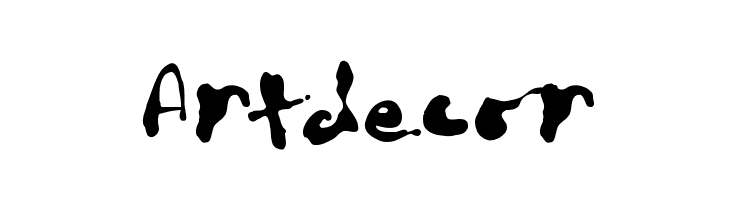
A bold, artistic font with an ink-like, fluid appearance.
A bold, outlined serif font with a classic and decorative style.
A playful font with each character accompanied by a cute puppy illustration.
A pixelated, retro-style font with a blocky, 8-bit video game aesthetic.
A whimsical, heart-themed decorative font with playful curves.
A bold, futuristic italic font with a gradient effect created by horizontal lines.
A bold, textured font with a rugged, graffiti-like appearance.
A decorative Halloween-themed font with playful and spooky illustrations.
A shadowed italic font with a three-dimensional effect and moderate contrast.
A bold, geometric font with angular lines and a modern, futuristic style.